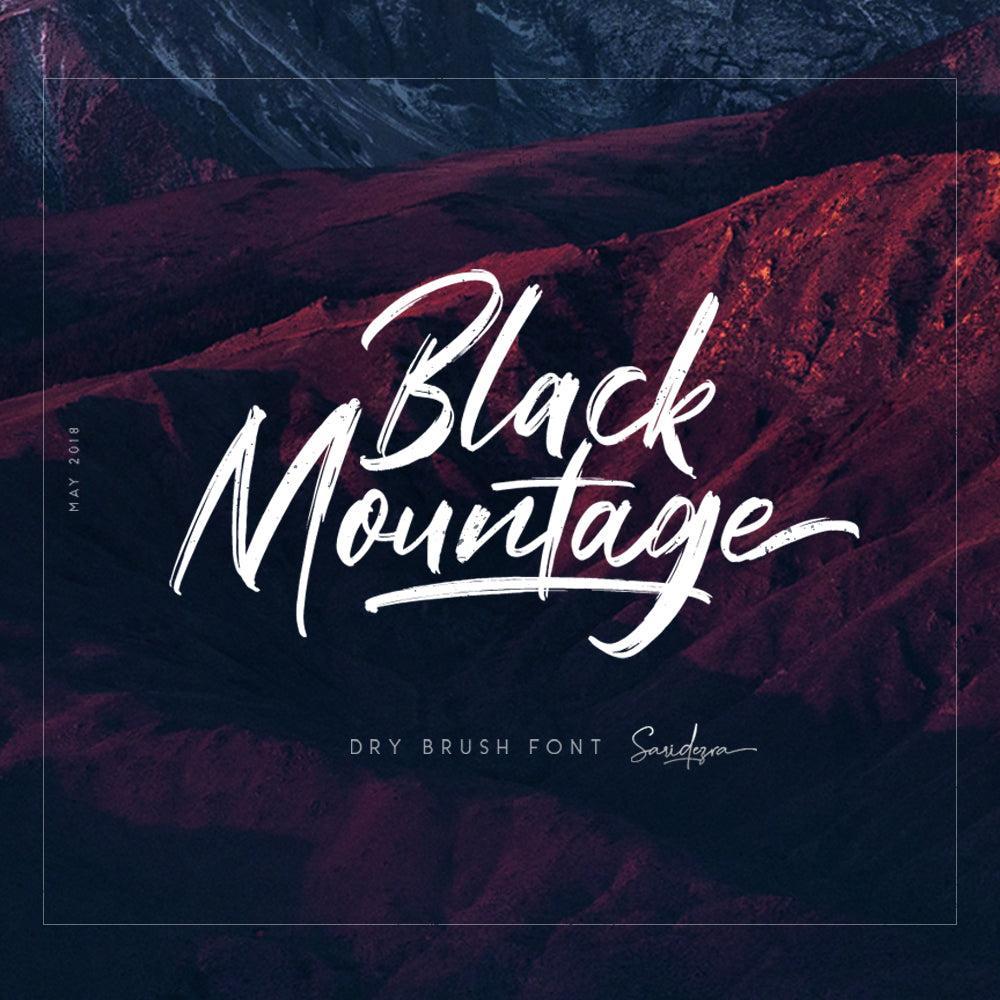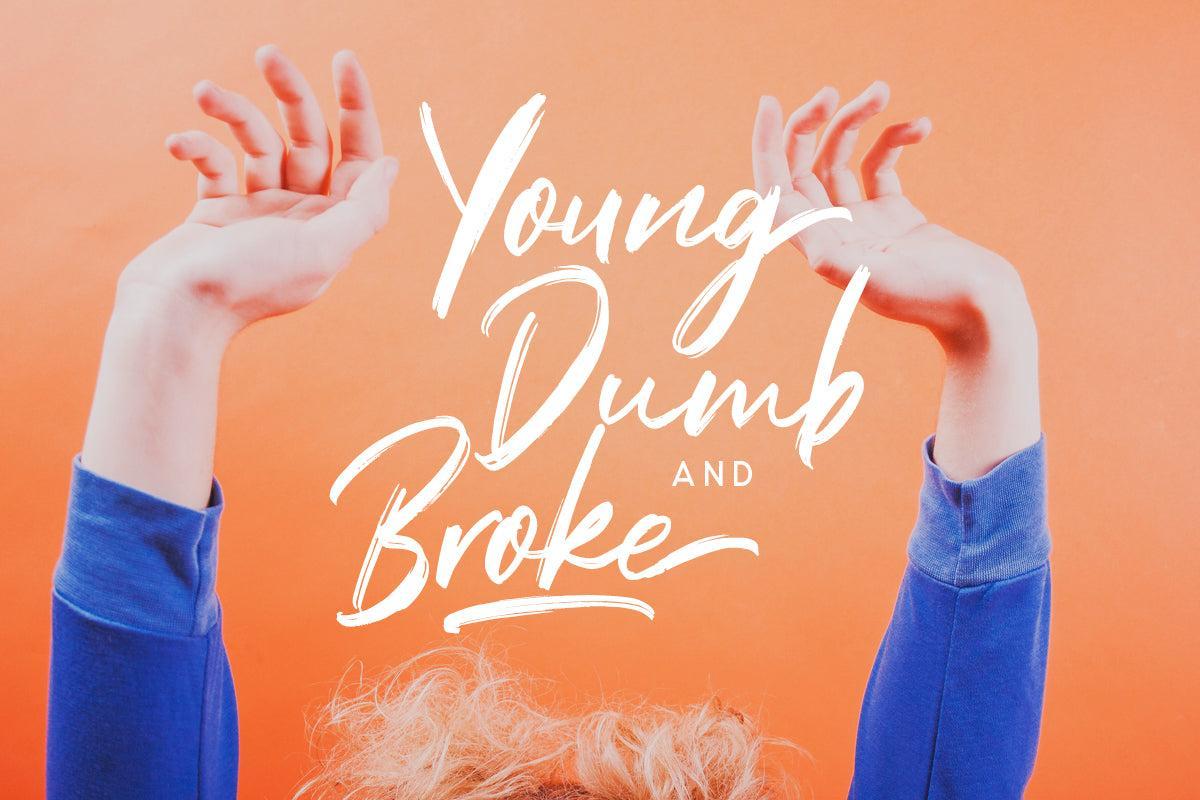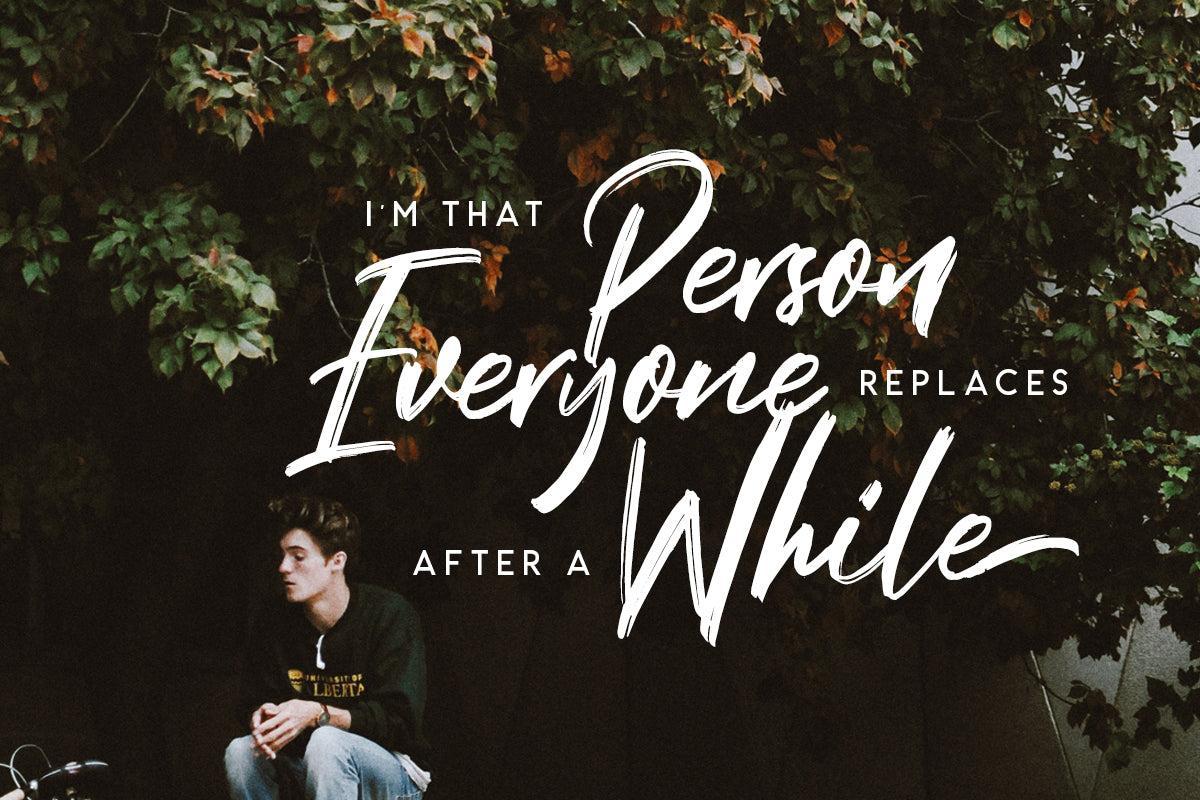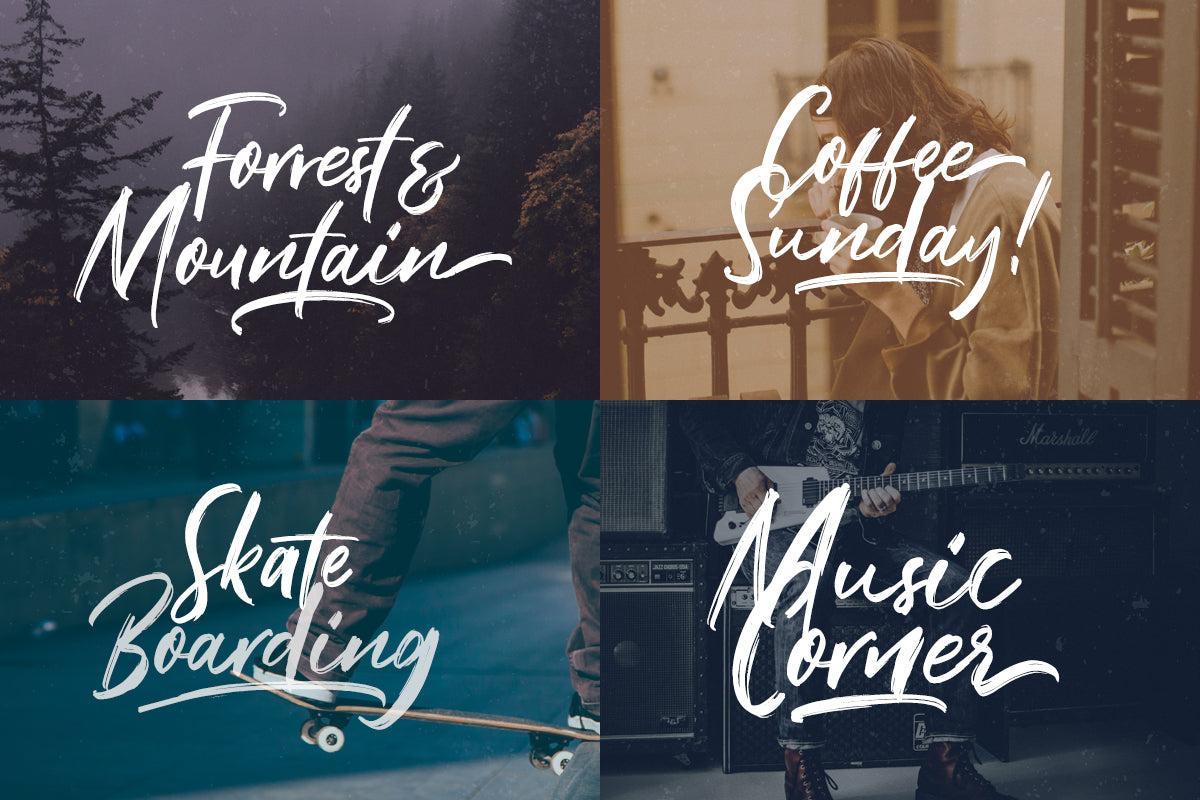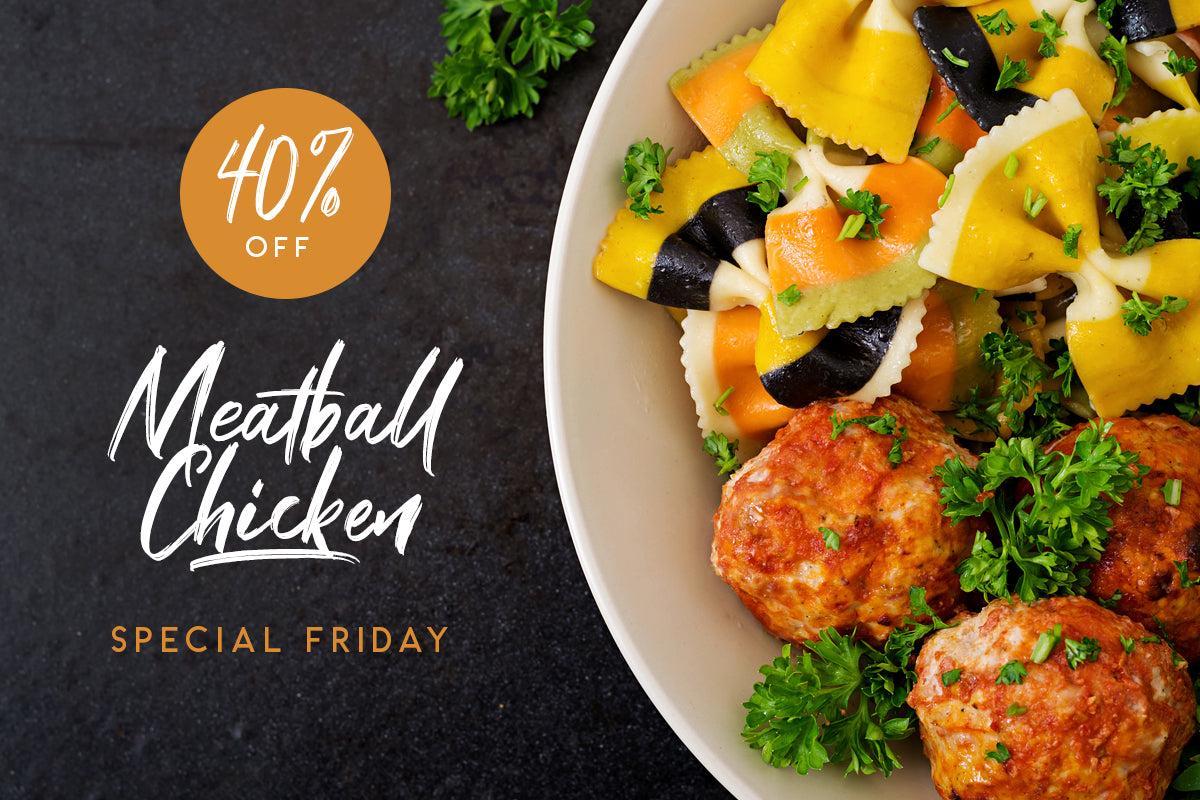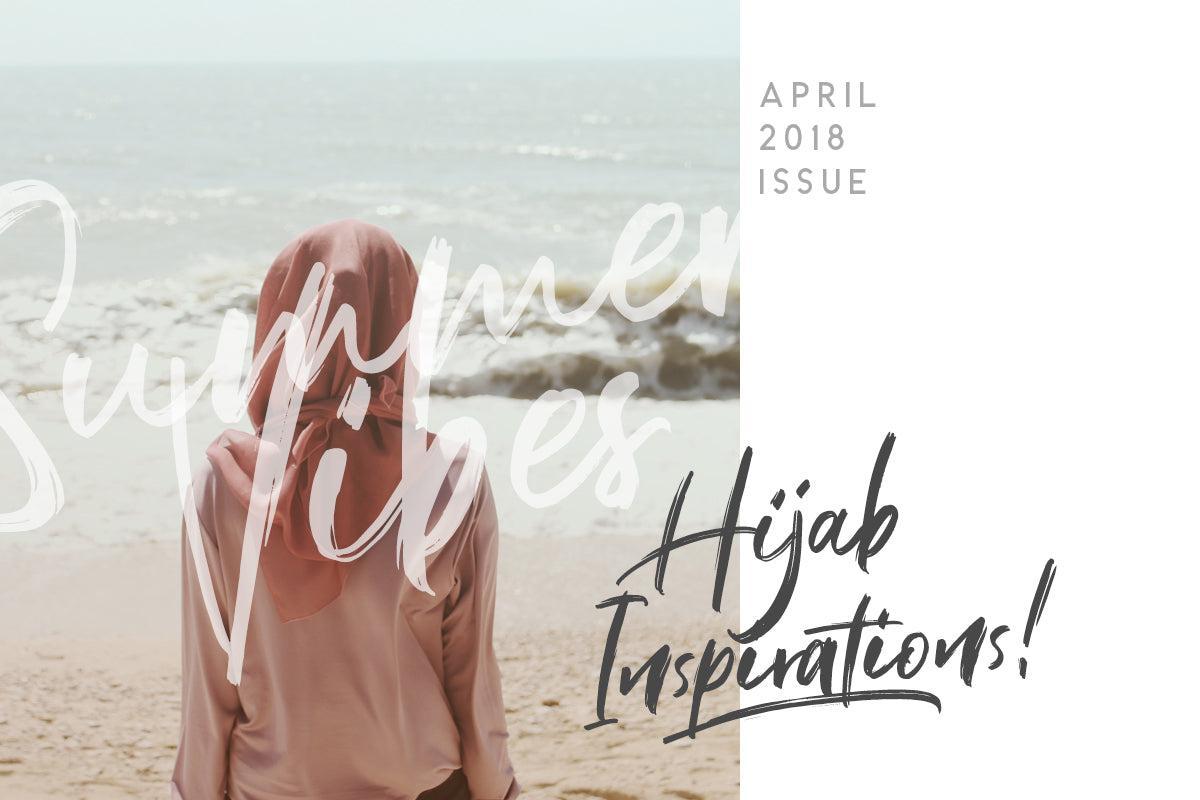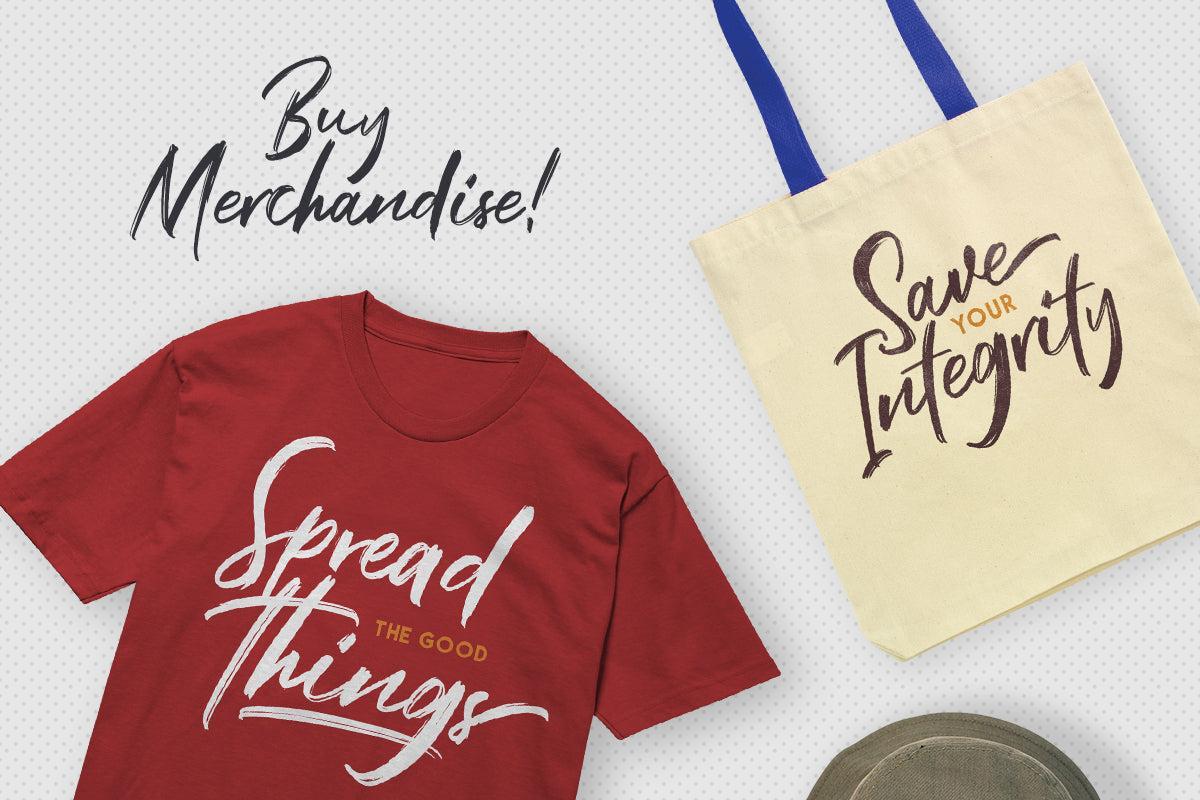
Black Mountage - Brush Font
Black Mountage is a brush font featuring stylistic alternates and swashes, allowing for customized signatures and quotes. It supports multiple languages and is available in OTF and TTF formats, with PUA support included.